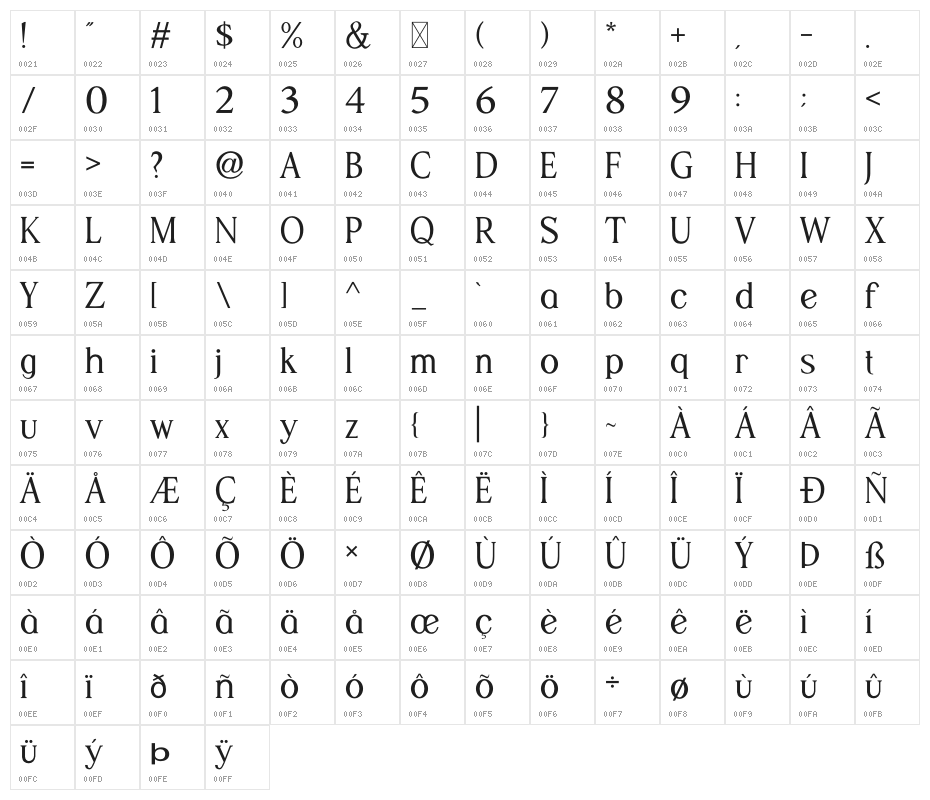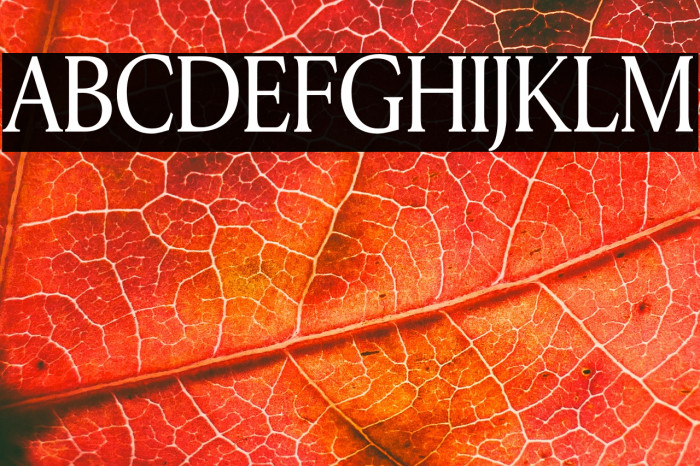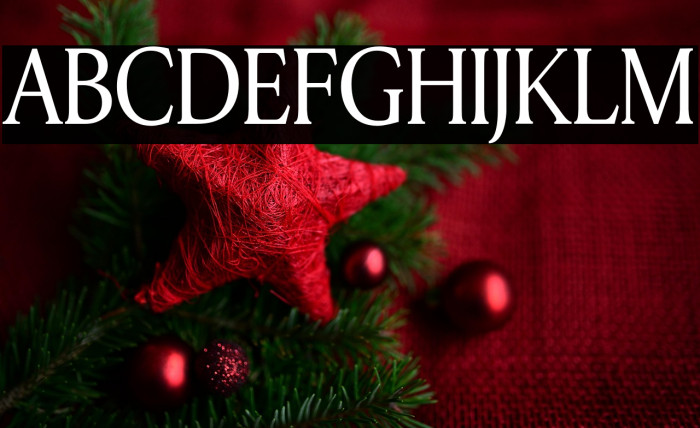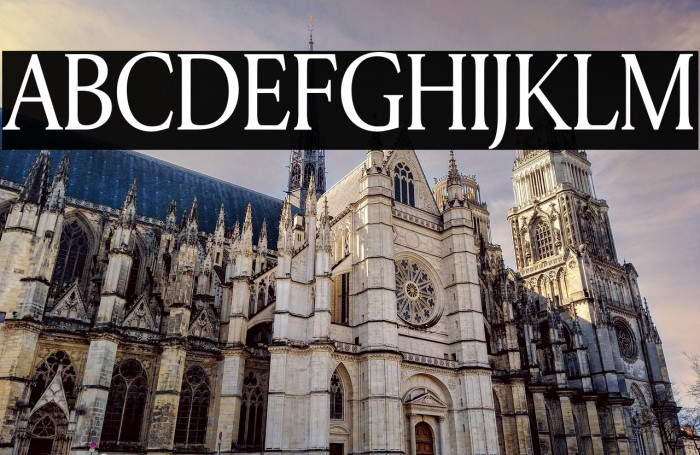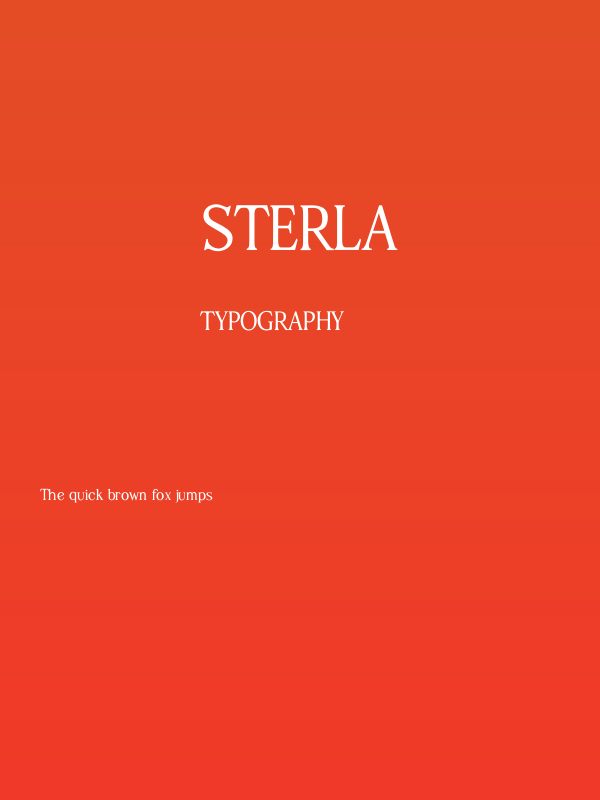
STERLA Font
STERLA Description
This font exhibits a classic serif style with a modern twist, characterized by its elegant and refined letterforms. The uppercase letters are tall and stately, with a slight contrast in stroke thickness that adds a touch of sophistication. The lowercase letters maintain a harmonious balance with their uppercase counterparts, featuring smooth curves and sharp serifs. The numerals are clear and legible, making them suitable for a variety of applications. Special characters are thoughtfully designed, ensuring consistency across the entire typeface. This font's timeless appeal makes it versatile for both digital and print media.
| Overall Style | Classic |
| Use Case | Headlines, Body text, Logos |
| Proposed Projects | Ideal for editorial design, book covers, branding, and formal invitations. |